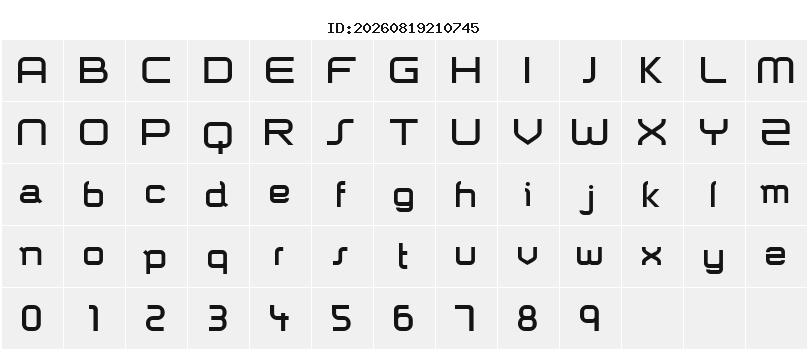
• Font Name: Shazbot
• Full Font Name: Shazbot
About Shazbot.ttf
Shazbot.ttf is a modern, elegant sans-serif font designed for ultimate readability and visual harmony. Perfect for branding, headlines, web design, and print materials.